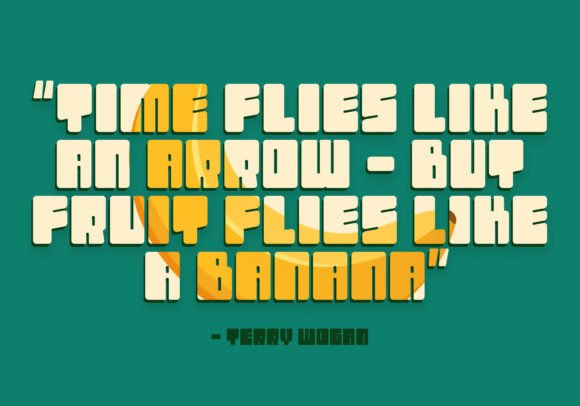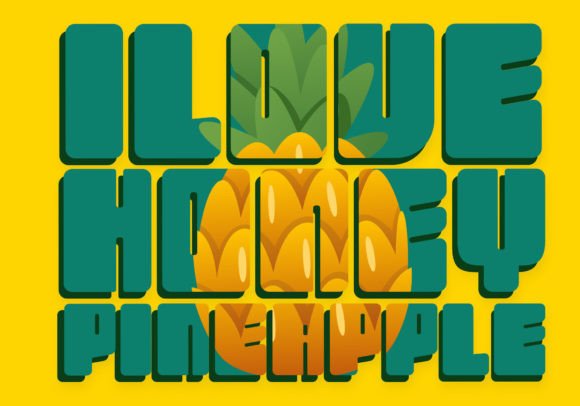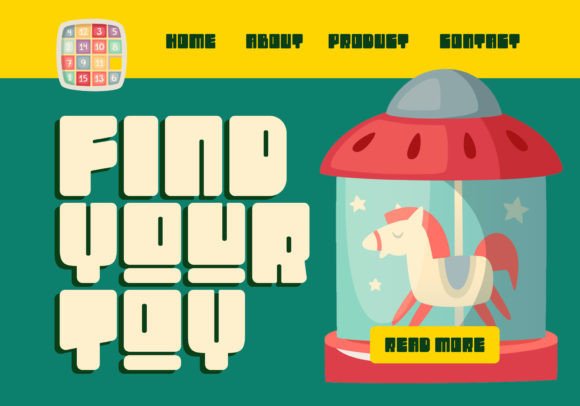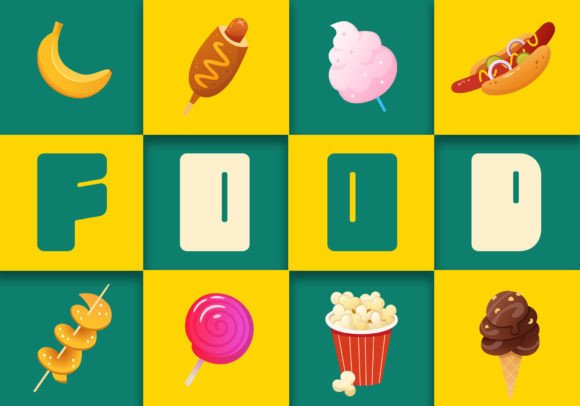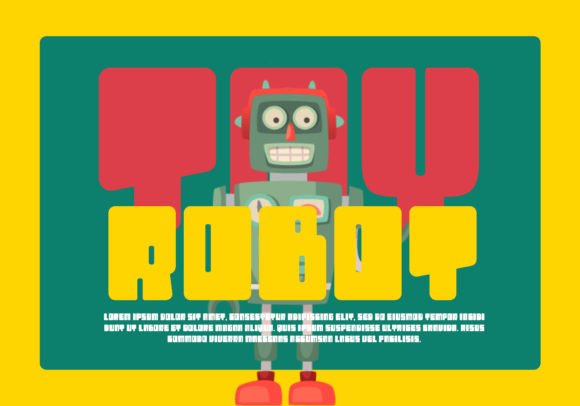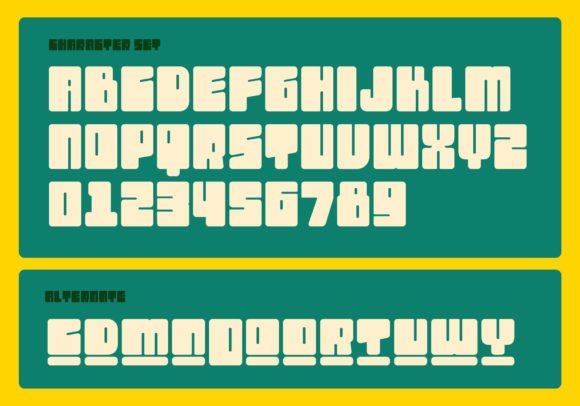
The Ultimate Display Font: Funtasia – Elevate Your Designs with a Unique Twist
Have you ever been in the middle of a design project, pouring your heart and soul into it, only to hit a creative roadblock because you just can’t seem to find the right font? I know I have. It was during one of those frustrating moments that I stumbled upon the Funtasia Font. This unique display font has been a game-changer for me, and I’m excited to share my experience with you.
A First Impression: What Makes Funtasia Stand Out
Funtasia is not just any font; it’s a statement maker. With its strong character, it instantly elevates any design, making it look modern and unique. The charm of Funtasia lies in its versatility – it can seamlessly blend with any style, making it a fantastic addition to your font library.
What I Love About Funtasia ✨
- ✅ Unique and Eye-Catching: Funtasia’s distinct style turns heads and grabs attention, perfect for projects that need to stand out.
- ✅ Versatile: Whether it’s a book cover, movie poster, logo, or business card, Funtasia fits right in.
- ✅ Elegant yet Bold: It strikes the perfect balance between sophistication and boldness, making it suitable for a wide range of projects.
- ✅ Easy to Read: Despite its uniqueness, Funtasia remains legible, which is a significant plus for display fonts.
- ⚠️ May Not Suit All Themes: While Funtasia is versatile, its strong character might not fit well with very minimalist or traditional designs.
- ⚠️ Could Overpower Subtle Imagery: When used with delicate images or backgrounds, Funtasia might overpower them, so balance is key.
Exploring Alternatives: Fonts Similar to Funtasia
If you’re looking for more options or want to experiment with different styles, here are a few fonts similar to Funtasia:
- Playfair Display: Elegant and luxurious, perfect for high-end branding and editorial designs.
- Raleway: Offers a range of weights and styles, great for designs needing a sophisticated yet modern touch.
- Great Vibes: Script with a personal touch, ideal for creative and artistic projects.
- Bramble: A bit more rustic but equally charming, suitable for nature-inspired or vintage-themed designs.
The Story Behind Funtasia: A Designer’s Inspiration
The journey of Funtasia began with a simple goal: to create a font that stands out yet feels approachable. Inspired by urban landscapes and modern art, the designer aimed to craft a typeface that embodies both strength and elegance. Through a meticulous process of sketching and digital refinement, Funtasia emerged as a versatile and captivating display font.
Q: Is Funtasia suitable for body text?
A: While Funtasia is primarily designed as a display font, its legibility makes it possible to use for short paragraphs of body text. However, for longer texts, a more traditional font might be more appropriate.
Q: Does Funtasia support OpenType features?
A: Yes, Funtasia supports OpenType features, including stylistic alternates and ligatures, which can be accessed in compatible software like Adobe Photoshop and Illustrator.
Q: Is Funtasia available in different weights or styles?
A: The standard version of Funtasia comes in a single weight, but some font packages may offer variations. It’s best to check the specific package details for availability.